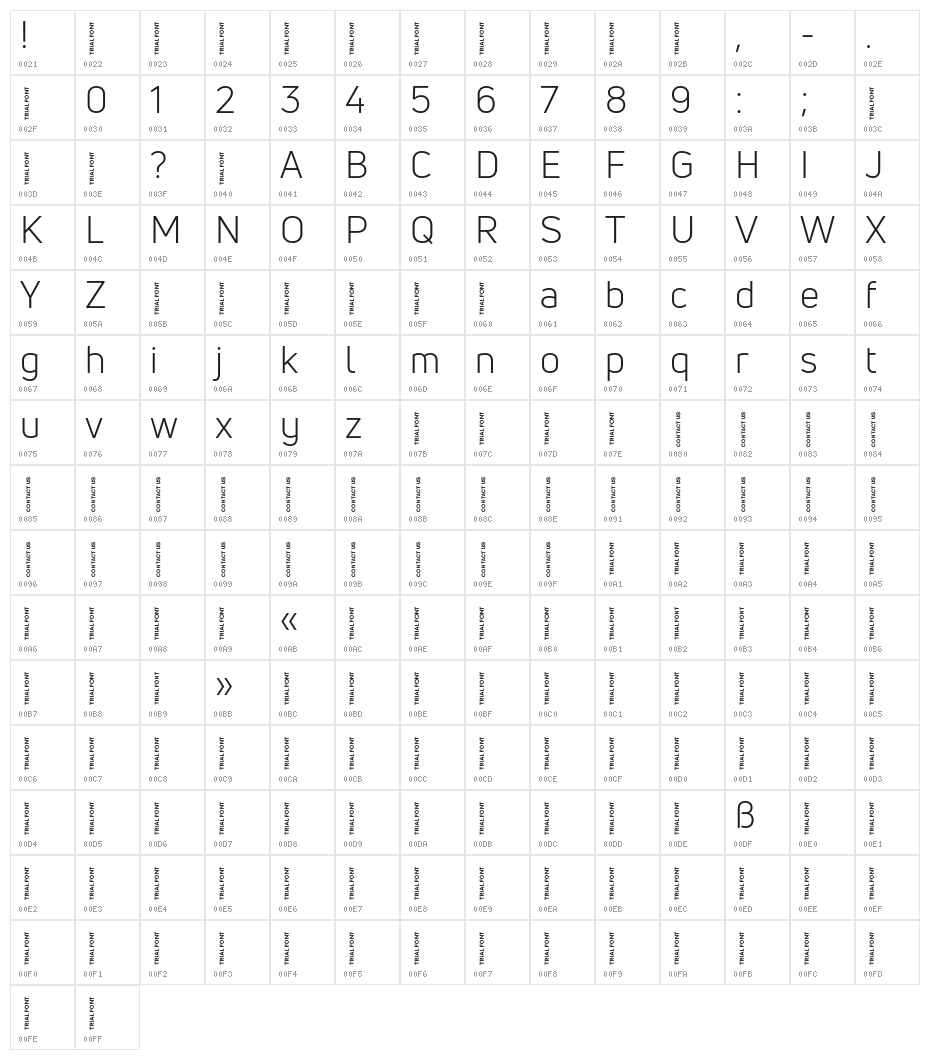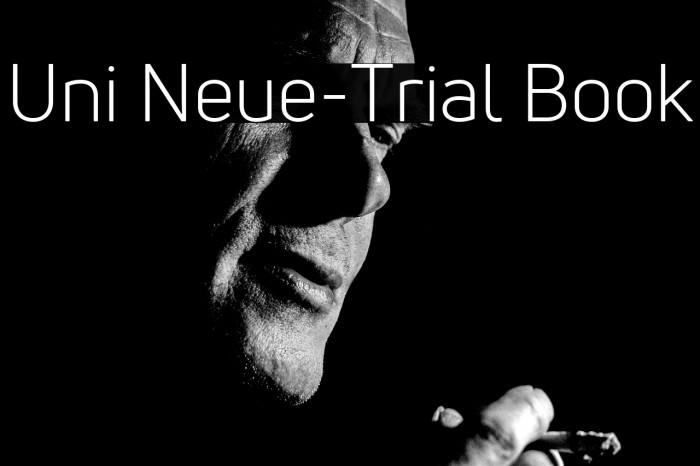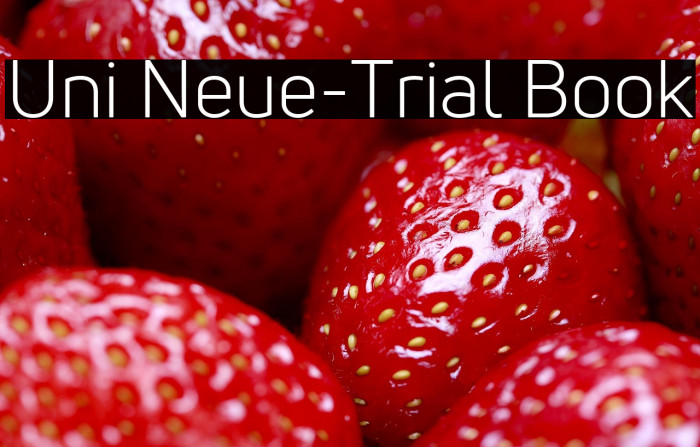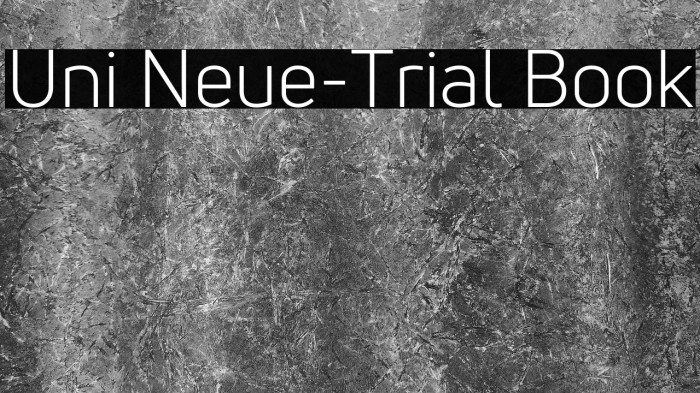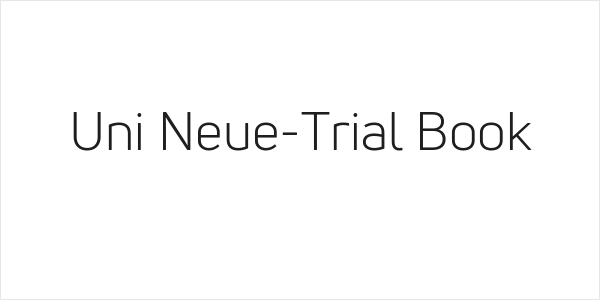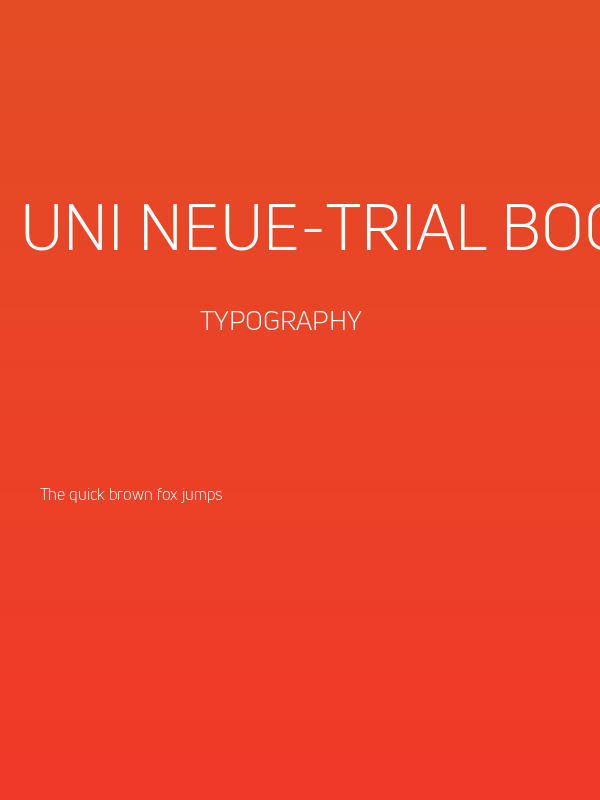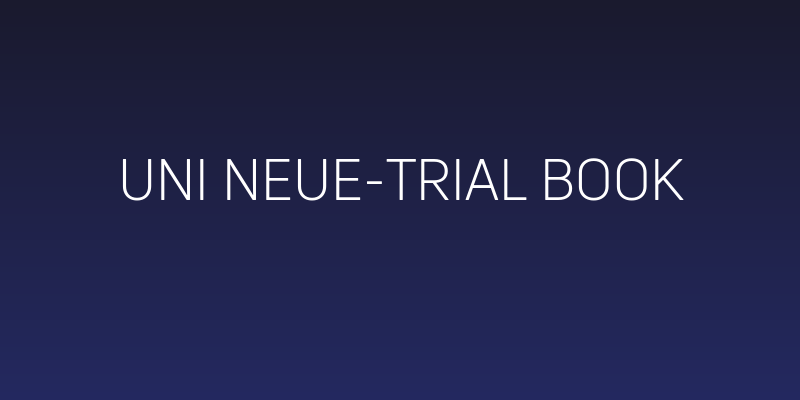
Uni Neue-Trial Book Font
Uni Neue-Trial Book Description
This font exhibits a clean and modern sans-serif style, characterized by its geometric shapes and uniform stroke widths. The uppercase letters are bold and assertive, while the lowercase letters maintain a smooth and approachable appearance. The numerals are clear and easily distinguishable, making them suitable for various applications. The special characters are well-integrated, maintaining the overall aesthetic of the font. Its simplicity and clarity make it versatile for both digital and print media.